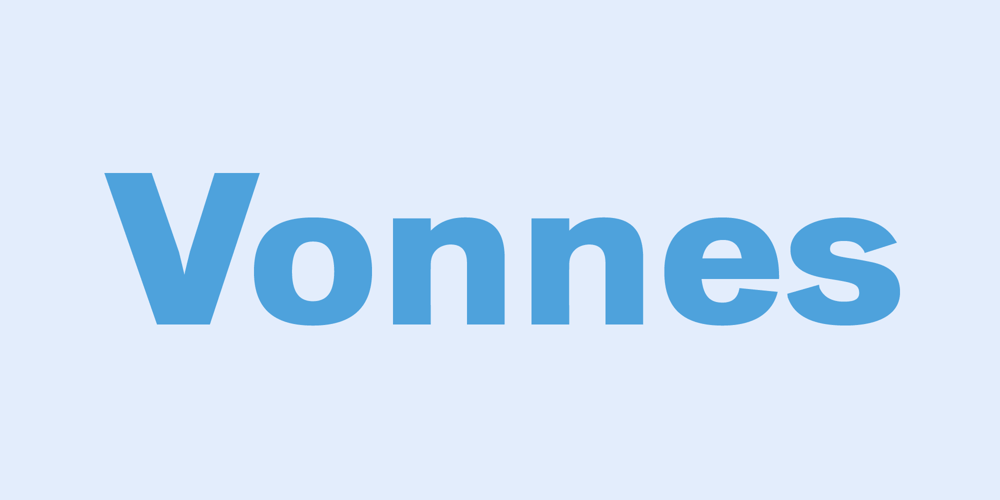
Vonnes
Vonnes font
Vonnes Font Family was designed by David Berlow and published by Font Bureau. Vonnes contains 59 styles and family package options. Vonnes was designed by David Berlow working closely with Neville Brody on corporate redesign for Jim Von Ehre at Macromedia. Core weights are loosely based on Bauer’s Venus, 1907–1910. Berlow expanded the ideas behind the series to 56 fonts, the heart of the redesign. The Macromedia program was hailed as one of the most successful models of modern total design for innovative cutting edge companies; FB 2007